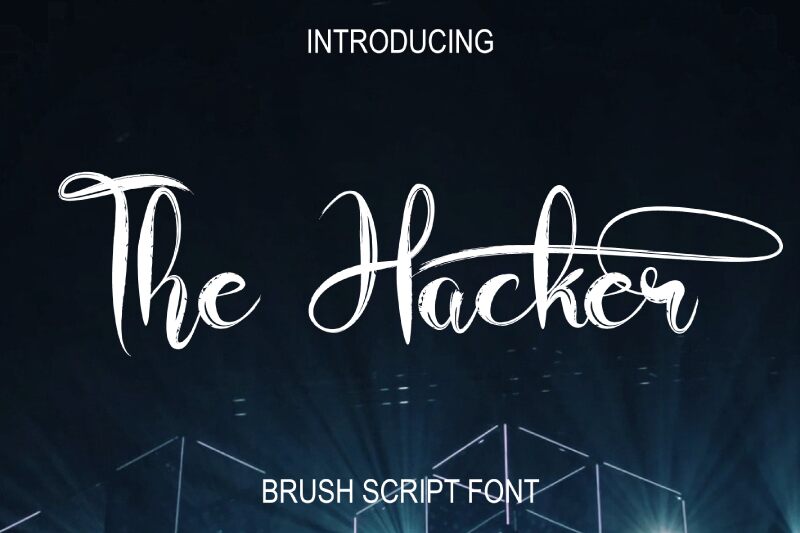
The Hacker
The Hacker font, designed by Fahmi Hayat, is a unique brush calligraphy typeface that adds a touch of sophistication to any project. Its semi-light weight creates an elegant yet modern look that is perfect for branding, logos, and headlines. The Hacker's fluid strokes and natural curves give it a free-flowing feel that is versatile enough to be used in a variety of design projects. Whether it's for a tech startup or an artisanal bakery, The Hacker font will add an edgy and contemporary vibe to your work. So go ahead and let your creativity run wild with this stunning typeface.